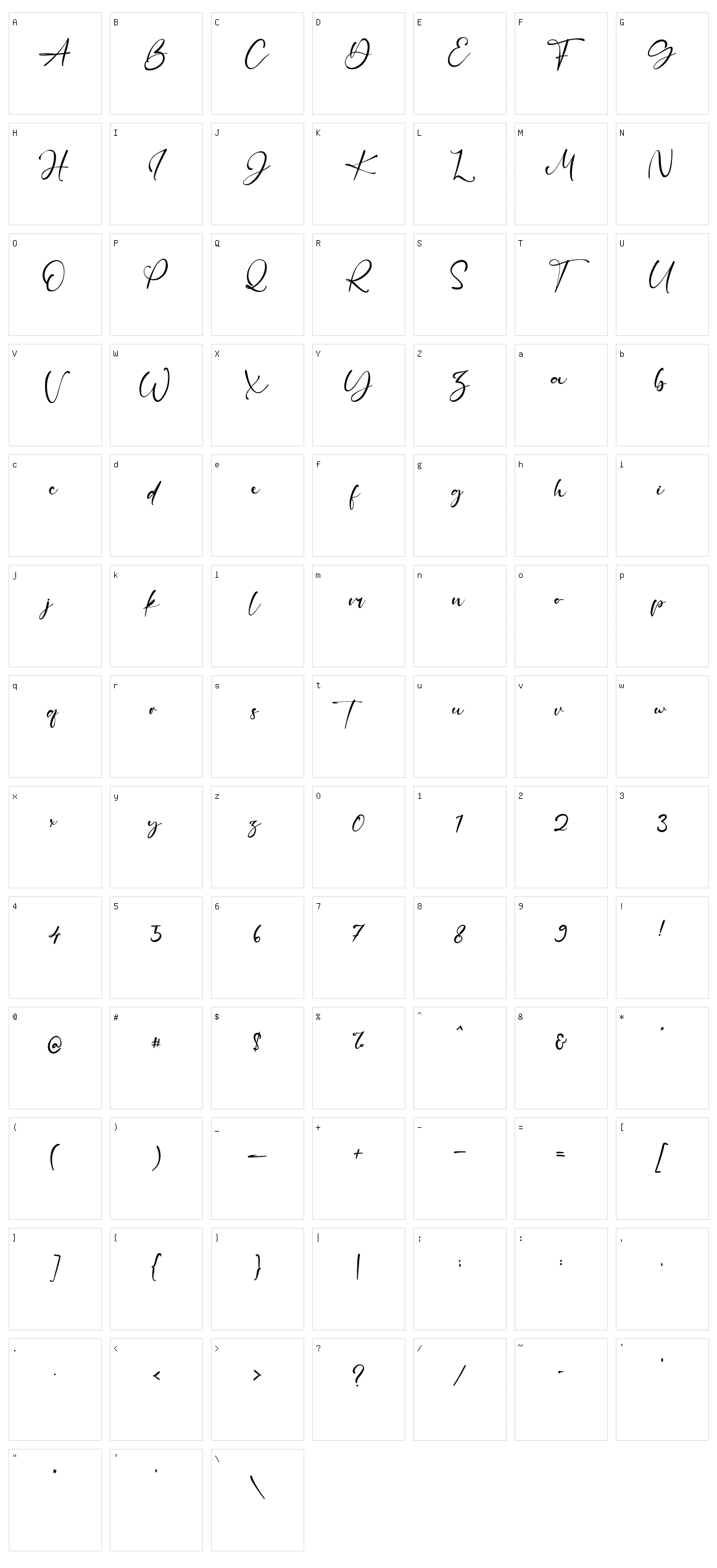
The free font Neal Ball is carefully designed by Kong Font, showcasing a thoughtful balance of creativity and usability and falls under the Script font style. When you download the ZIP file, it contains only 85.92 KB of font files, making it lightweight and quick to download. Please review the license details below to understand permitted usage and distribution rights. If license information is not available, we recommend using this font for personal projects only or contacting the author directly for commercial usage permissions.